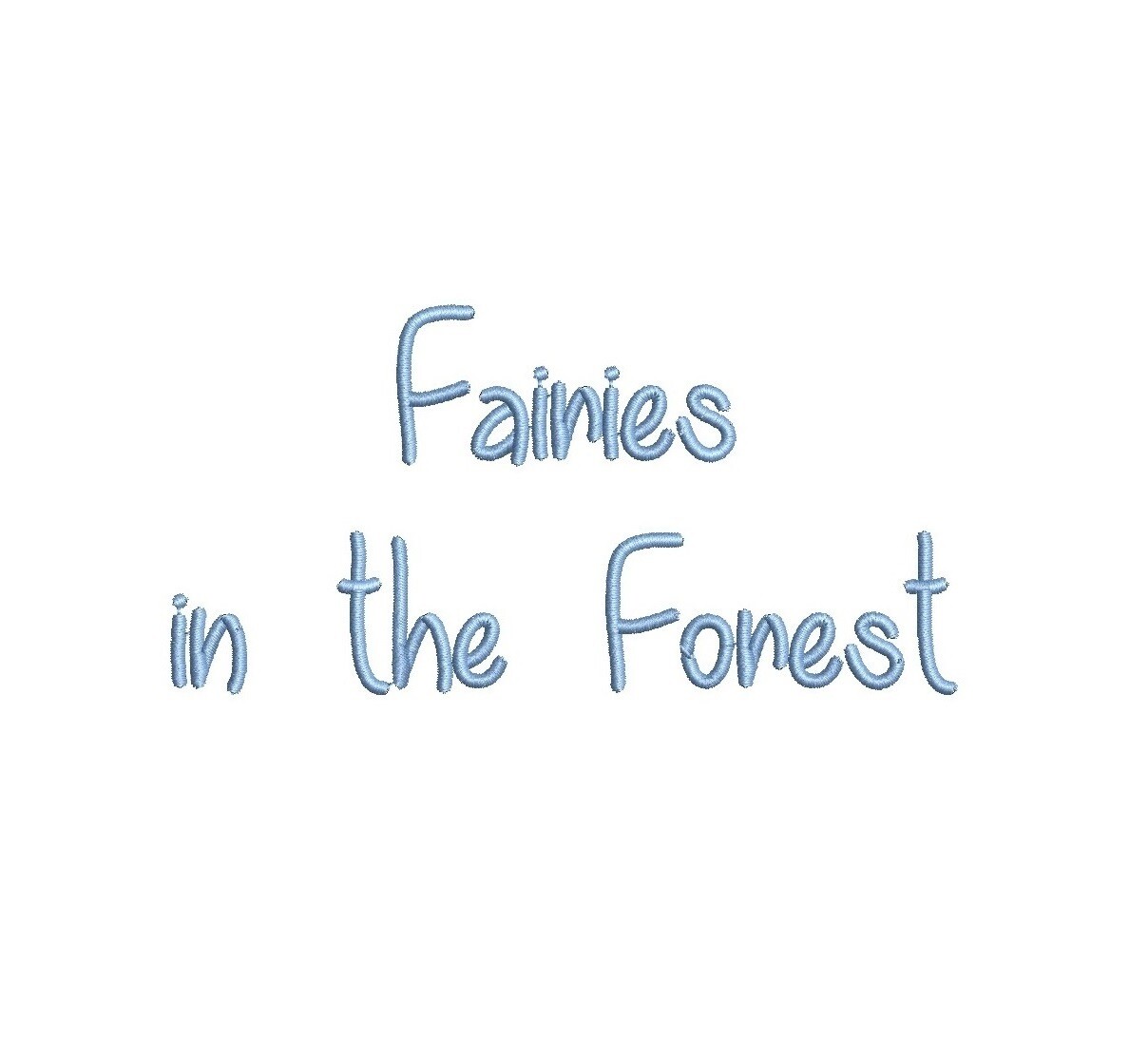
Introducing Fairies in the Forest Regular ESA font - a magical and enchanting typeface that transports you to a world of fantasy. Crafted with precision and attention to detail, this premium font guarantees a seamless and enjoyable design experience. Compatible with Wilcom Studio e4.5.6 and Hatch 3 versions and up, this versatile font ensures smooth embroidery creation. Whether it's fairy-tale-themed designs, children's projects, or whimsical crafts, Fairies in the Forest Regular ESA font adds a touch of wonder to any endeavor. Don't miss out on this mystical gem; elevate your creations with its captivating charm. Get it now and embrace the magic.